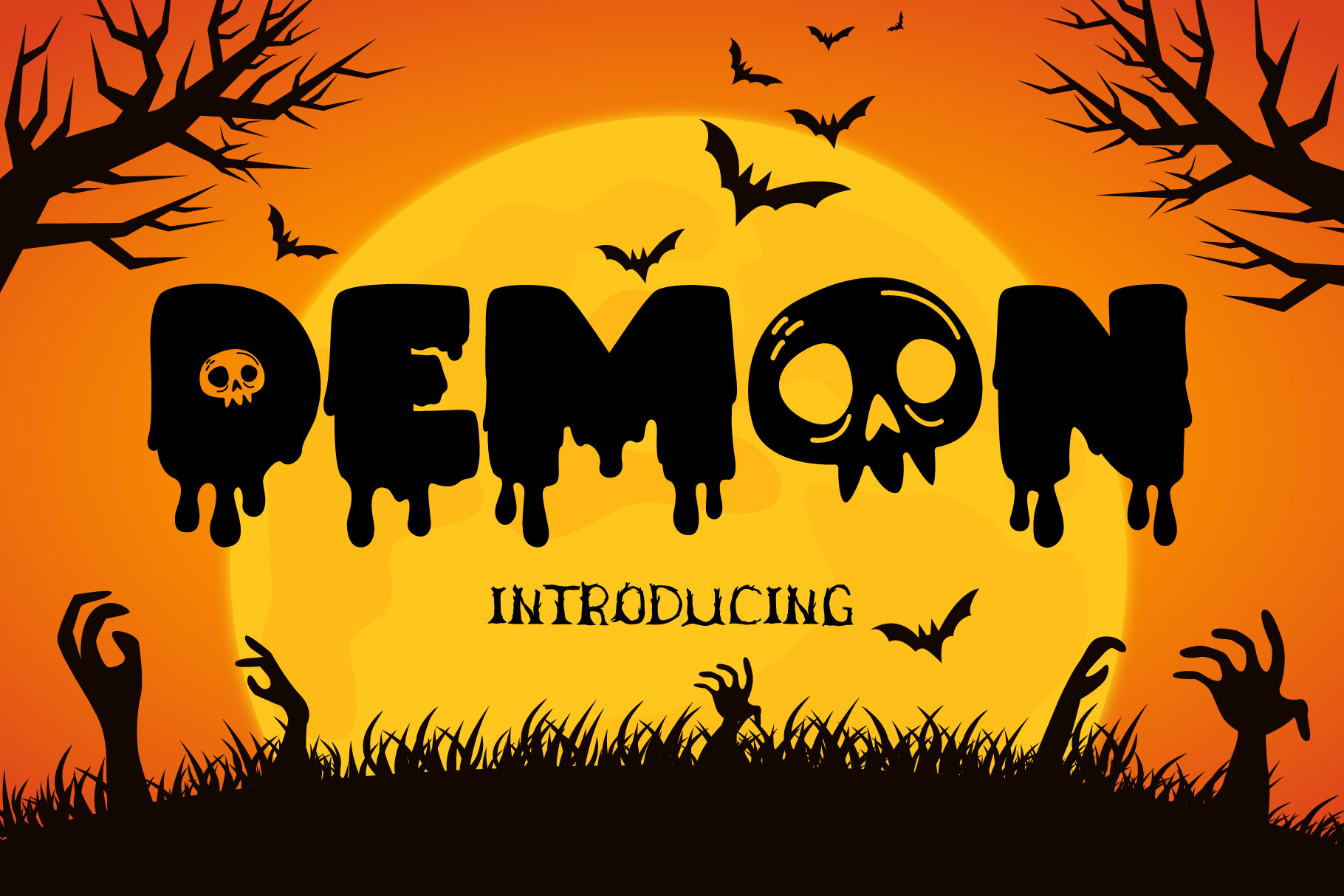
Demon Fonts
Demon is a display font. beautiful, and fun. Suitable for a variety of designs such as Halloween, and children’s themes. It is perfect for logos, t-shirts, papers, print designs, website headers, photo frames, flyers, music covers, posters, image sliders, and much more.